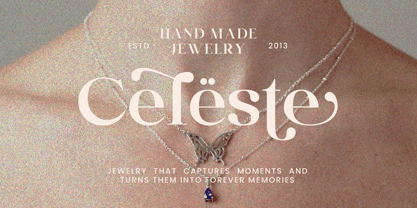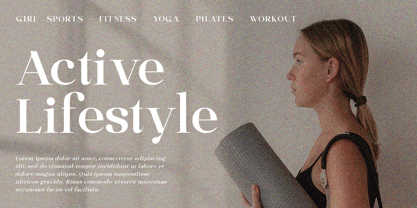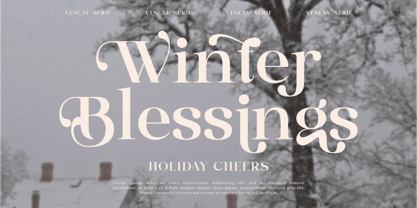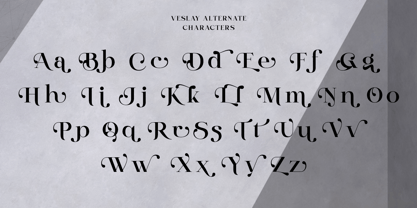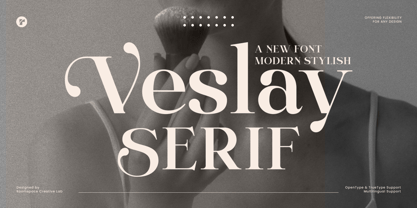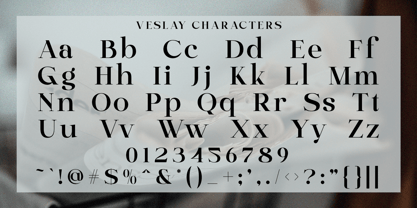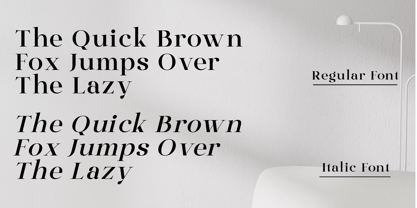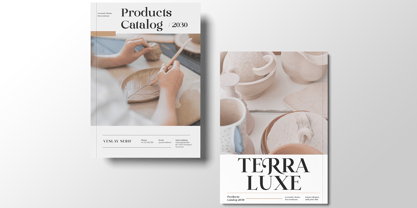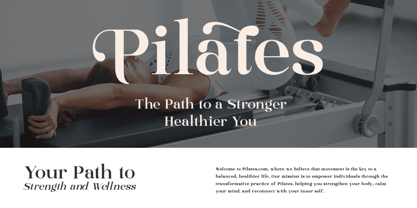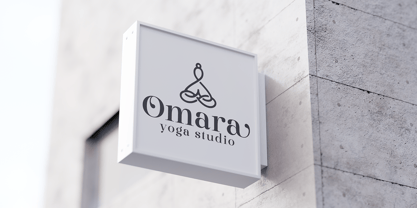
Veslay
La familia tipográfica Veslay fue diseñada por Bakhrudin Ja'far y publicada por Jafar07. Veslay contiene 2 estilos y opciones de paquete familiar. Más información sobre esta familia
Vesley Serif Font, a versatile and stylish typeface blending retro and modern aesthetics. Perfect for creating timeless logos, chic branding, and elegant editorial layouts, this font is designed for designers, entrepreneurs, and creators who value boldness with a minimalist touch.
Vesley stands out with its unique alternate characters, intricate swash/tail details, and exceptional readability. Its retro modern charm makes it ideal for fashion projects, wedding invitations, magazine layouts, and even packaging designs. Whether you're crafting a bold headline or a sophisticated logo, Vesley Serif Font ensures your work leaves a lasting impression.
With its chic serif style, creative typography, and aesthetic appeal, Vesley is the perfect choice for advertising, branding typography, or any project that demands a trendy and luxurious font.
A little from my personal design & background: My name is Bakhrudin Ja'far, I live in Malang, Indonesia. I am currently completing my degree in visual communication design and I have worked as a lettering artist and logo designer for many years. I finally started my studio called roocspace creative lab (jafar07) Studio a few months ago and with my team made my letters into typography.